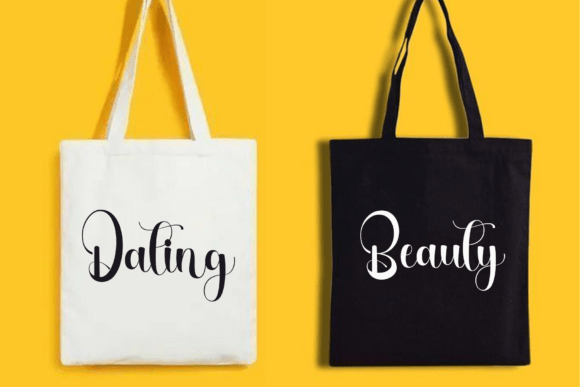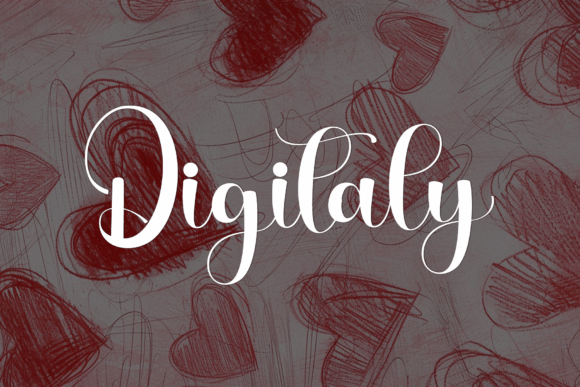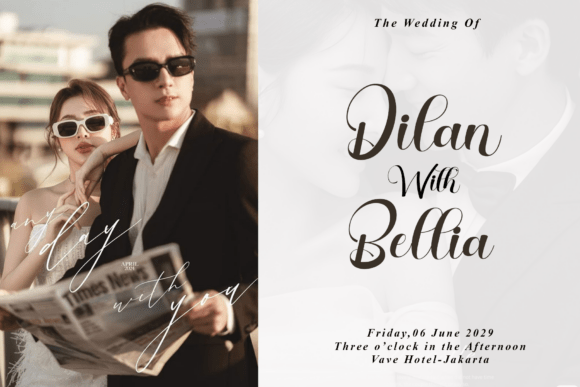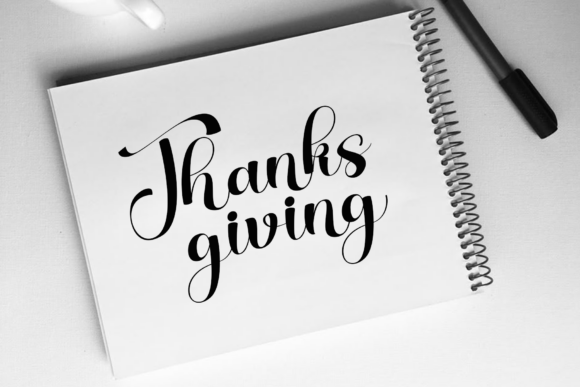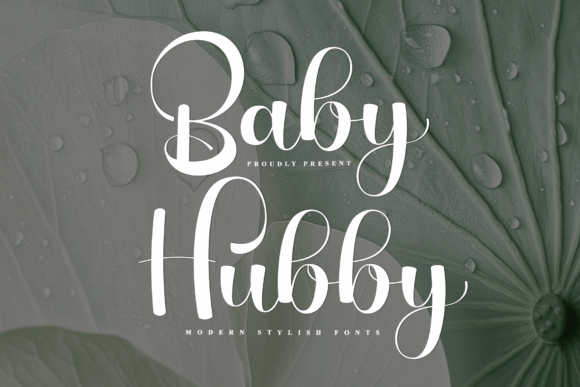
Baby Hubby Font: The Perfect Handwritten Typeface for Family-Themed Designs
In the world of typography, few fonts capture the essence of warmth and personality as effectively as the Baby Hubby font. This bold and expressive handwritten font boasts a dramatic, almost signature-like presence that is sure to make any design project stand out. With its unique flared style, thick vertical strokes, and sweeping horizontals, Baby Hubby exudes confidence and heart, making it the perfect choice for family-themed designs, personalized gifts, custom greeting cards, and more.
What Makes Baby Hubby Font So Special?
Baby Hubby is more than just a font – it’s a statement piece. Its distinctive flared style gives it a dynamic and energetic feel, while the thick vertical strokes and sweeping horizontals add a touch of elegance and sophistication. This font is perfect for designers and crafters looking to add a personal touch to their work, whether it’s a custom wedding invitation, a handmade baby blanket, or a heartfelt letter.
Perfect for Family-Themed Designs
When it comes to designing family-themed projects, the right font can make all the difference. Baby Hubby font is specifically designed to evoke a sense of warmth and connection, making it perfect for projects such as:
- Custom baby announcements and birth certificates
- Personalized family tree designs
- Handmade baby blankets and nursery decor
- Family recipe books and cookbooks
- Custom greeting cards and invitations
Adding a Personal Touch to Your Designs
One of the best things about Baby Hubby font is its ability to add a personal touch to any design project. Whether you’re a designer looking to create custom work for clients or a crafter looking to add a special touch to your handmade projects, this font is sure to impress. Here are a few ways you can use Baby Hubby font to add a personal touch to your designs:
- Use it for titles and headings to add a bold and expressive touch
- Pair it with other fonts to create a unique and eye-catching combination
- Use it to create custom illustrations and graphics
Why Designers and Crafters Love Baby Hubby Font
So why do designers and crafters love Baby Hubby font? Here are just a few reasons:
- It’s bold and expressive, making it perfect for titles and headings
- It’s confident and heartfelt, making it perfect for family-themed designs
- It’s versatile and can be used for a wide range of projects
- It’s easy to read and understand, making it perfect for body text
Tips for Using Baby Hubby Font Effectively
Here are a few tips for using Baby Hubby font effectively in your design projects:
- Use it sparingly – a little goes a long way with this bold font
- Pair it with a complementary font to create visual interest
- Experiment with different sizes and colors to add depth and dimension
- Use it to create a focal point in your design
In conclusion, Baby Hubby font is a versatile and expressive handwritten typeface that is perfect for family-themed designs, personalized gifts, custom greeting cards, and more. With its unique flared style, thick vertical strokes, and sweeping horizontals, this font is sure to add a touch of warmth and personality to any design project. Whether you’re a designer or crafter, Baby Hubby font is a must-have in your typography toolkit.